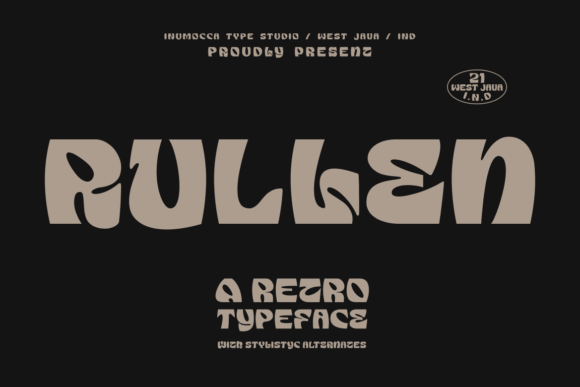
Rullen Font: A Blast from the Past with a Modern Twist
Dive into the world of retro typography with Rullen Font, an awe-inspiring display font that will transport you back to the groovy 70s. This font is not just a collection of letters; it's a gateway to a bygone era where bell bottoms ruled the streets, and disco balls lit up the dance floors. Rullen Font captures the essence of this iconic decade, blending the allure of the past with the freshness of the present.
Step into a realm where nostalgia meets innovation. Unleash your creativity with Rullen Font and let your designs dance to the rhythm of the 70s. Whether you're a seasoned designer, a branding guru, or a passionate artist, this font will elevate your projects to new heights. Its versatility knows no bounds, making it the perfect choice for movie titles, captivating headlines, book covers that speak volumes, and posters that demand attention.
With Rullen Font, your designs will exude an aura of timeless charm, leaving an indelible mark on your audience. Its unique character will breathe life into your logos, adding a touch of retro flair that will make your brand stand out from the crowd. Embrace the power of nostalgia and watch as your designs become instant classics, evoking a sense of familiarity and warmth in the hearts of your customers.
Don't settle for ordinary fonts; embark on an extraordinary journey with Rullen Font. Its carefully crafted curves and striking lines will add a touch of elegance to your designs, making them shine brighter than the disco balls of the 70s. Let Rullen Font be your creative compass, guiding you through the labyrinth of design possibilities, and unlocking new horizons of visual expression.